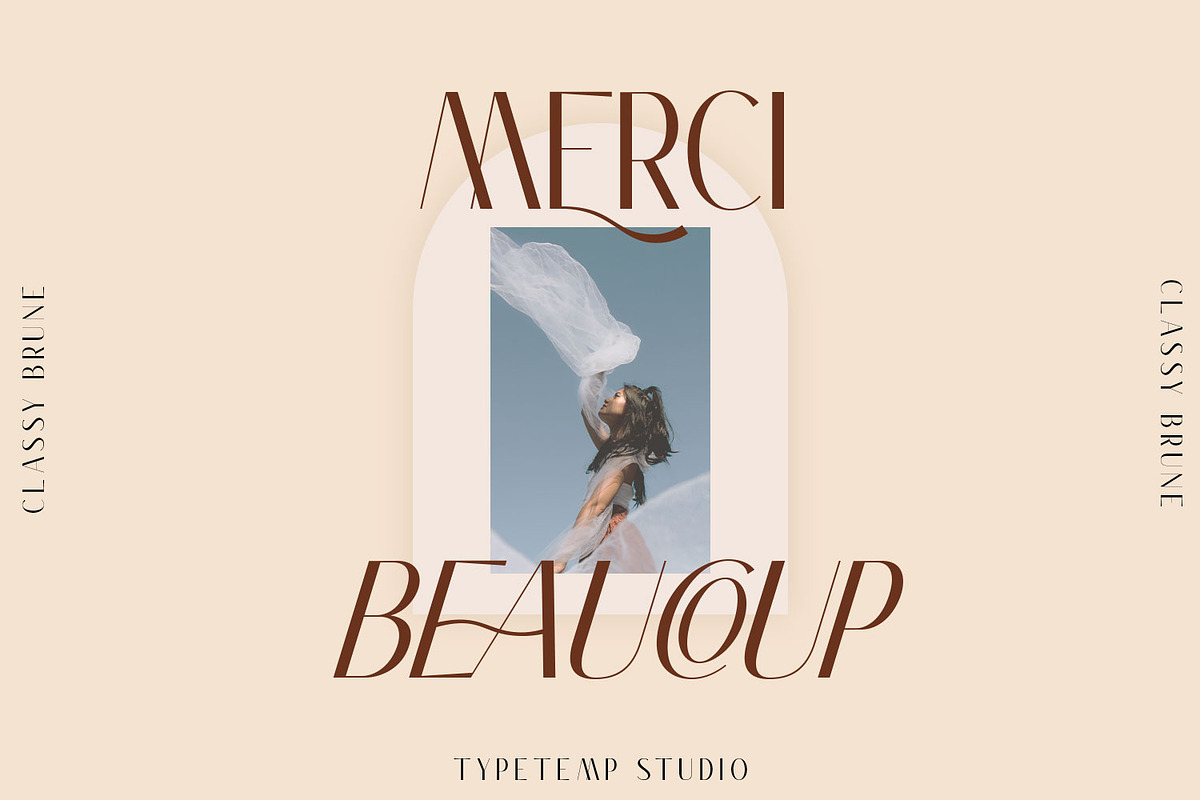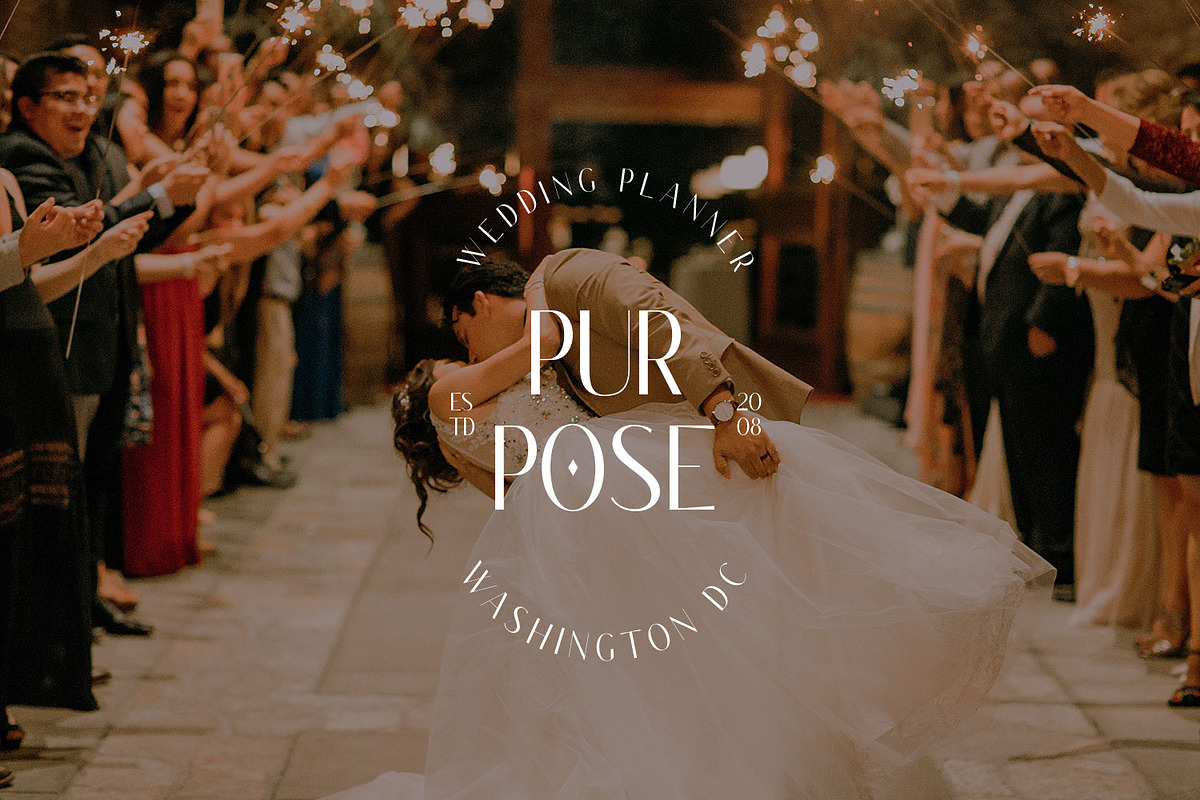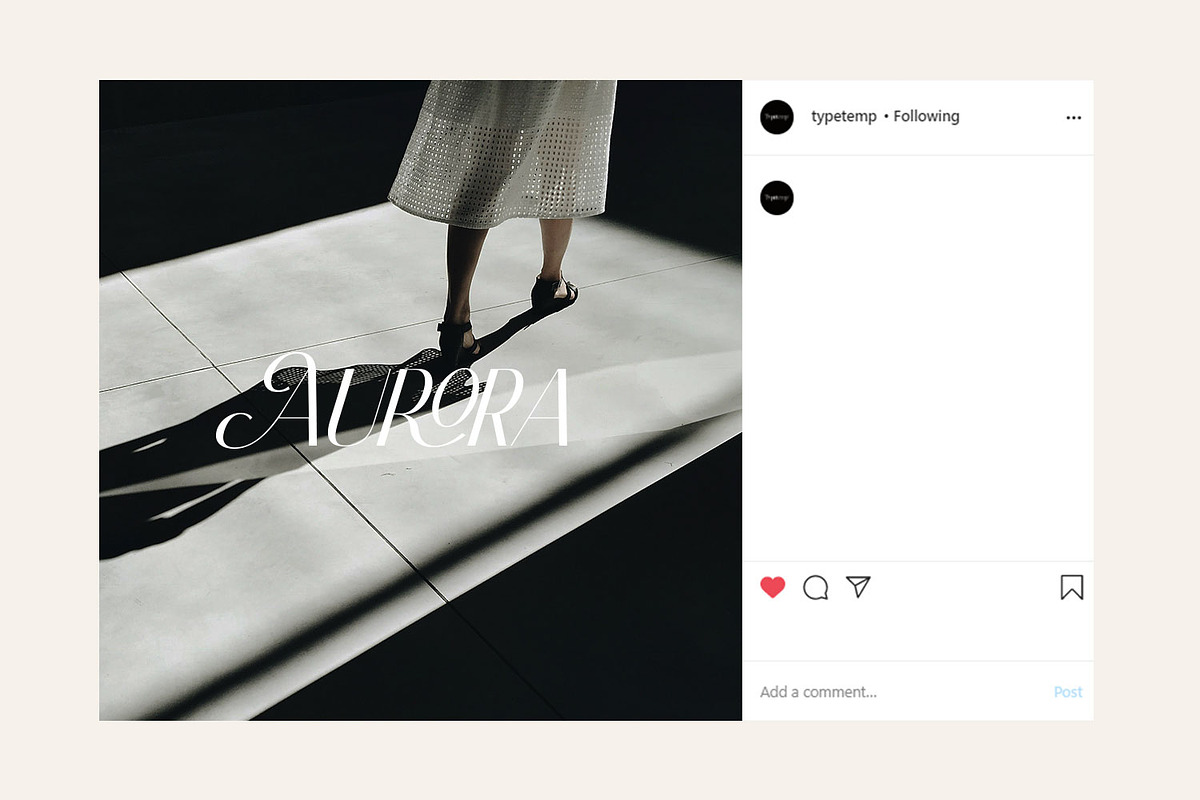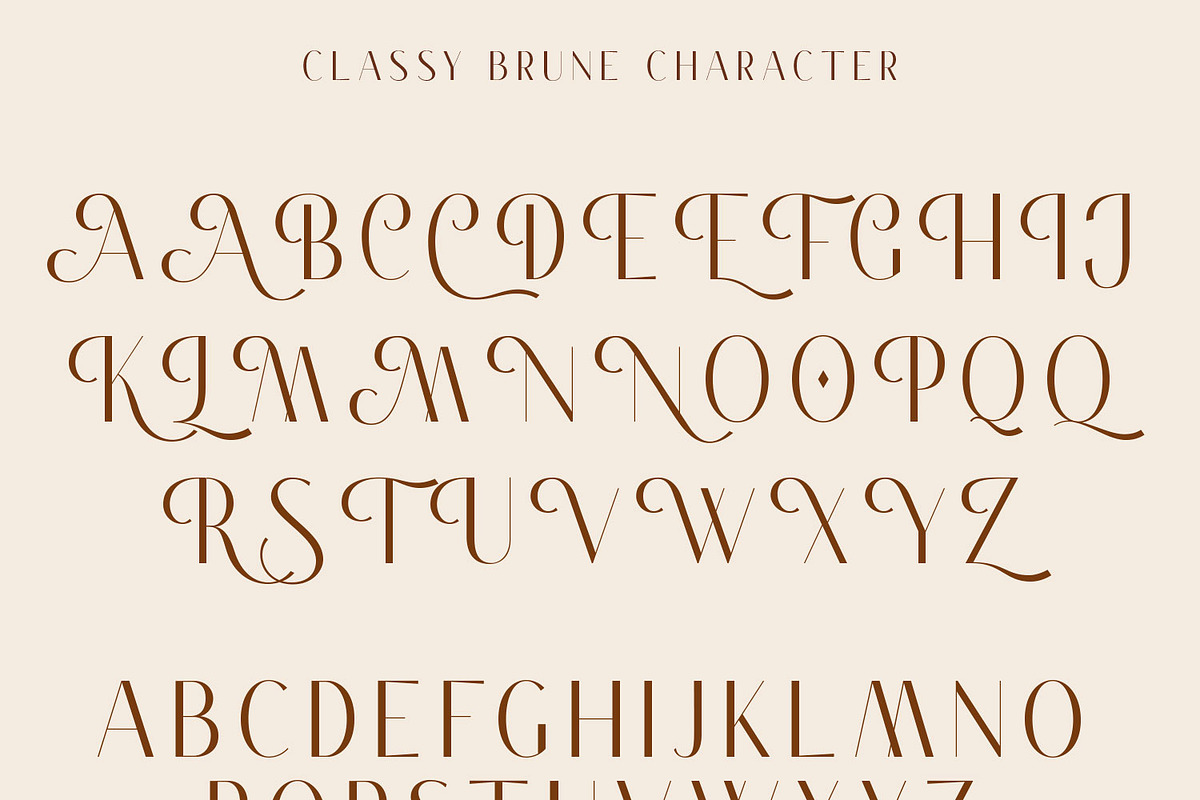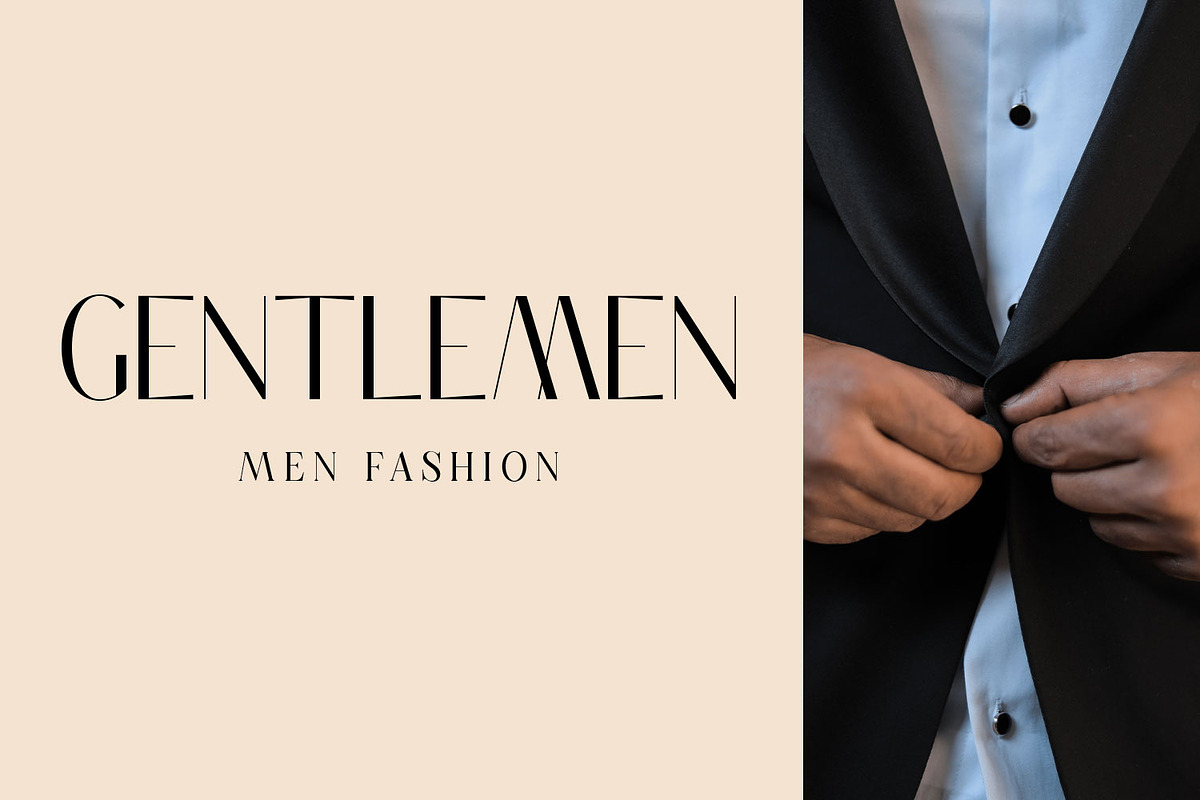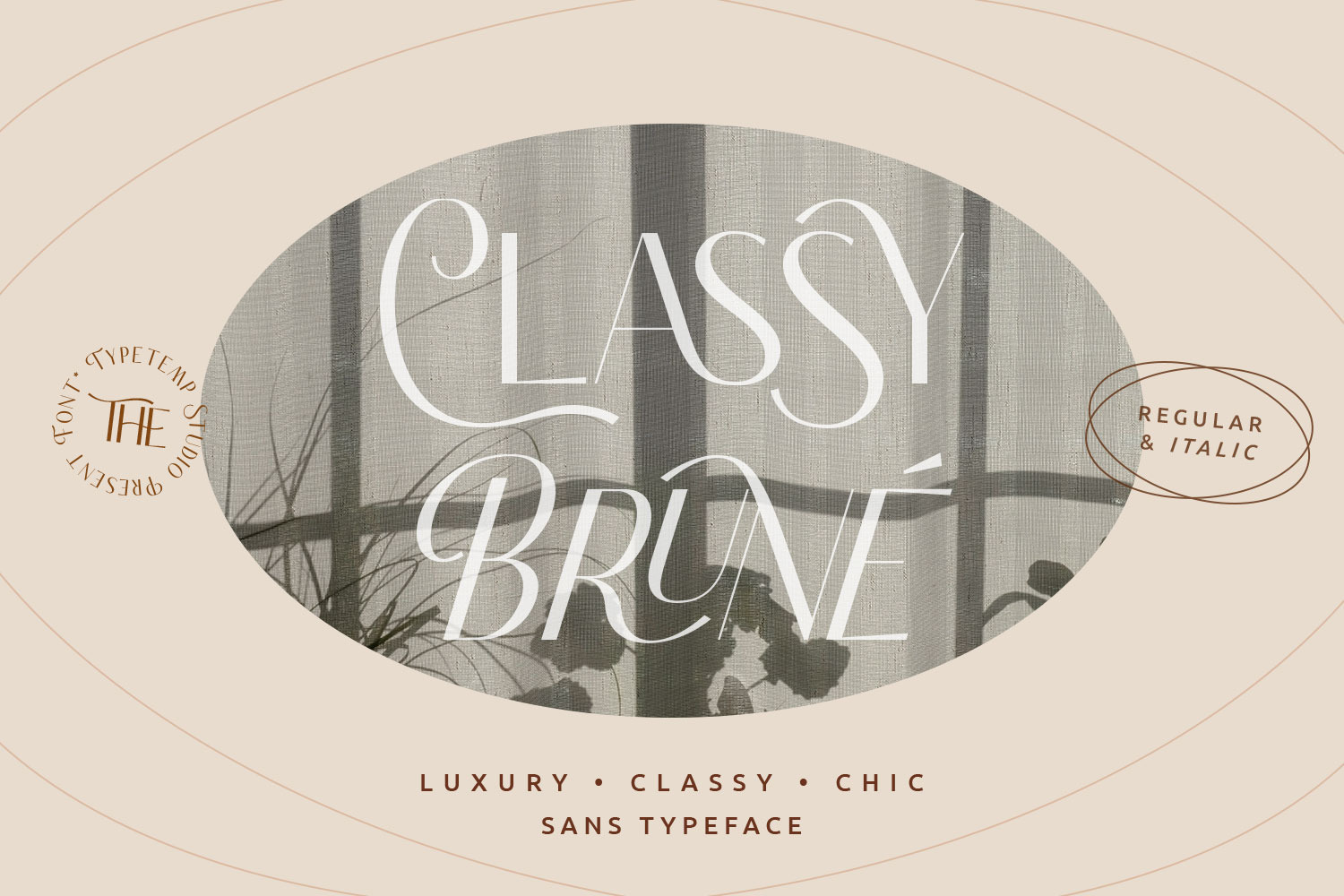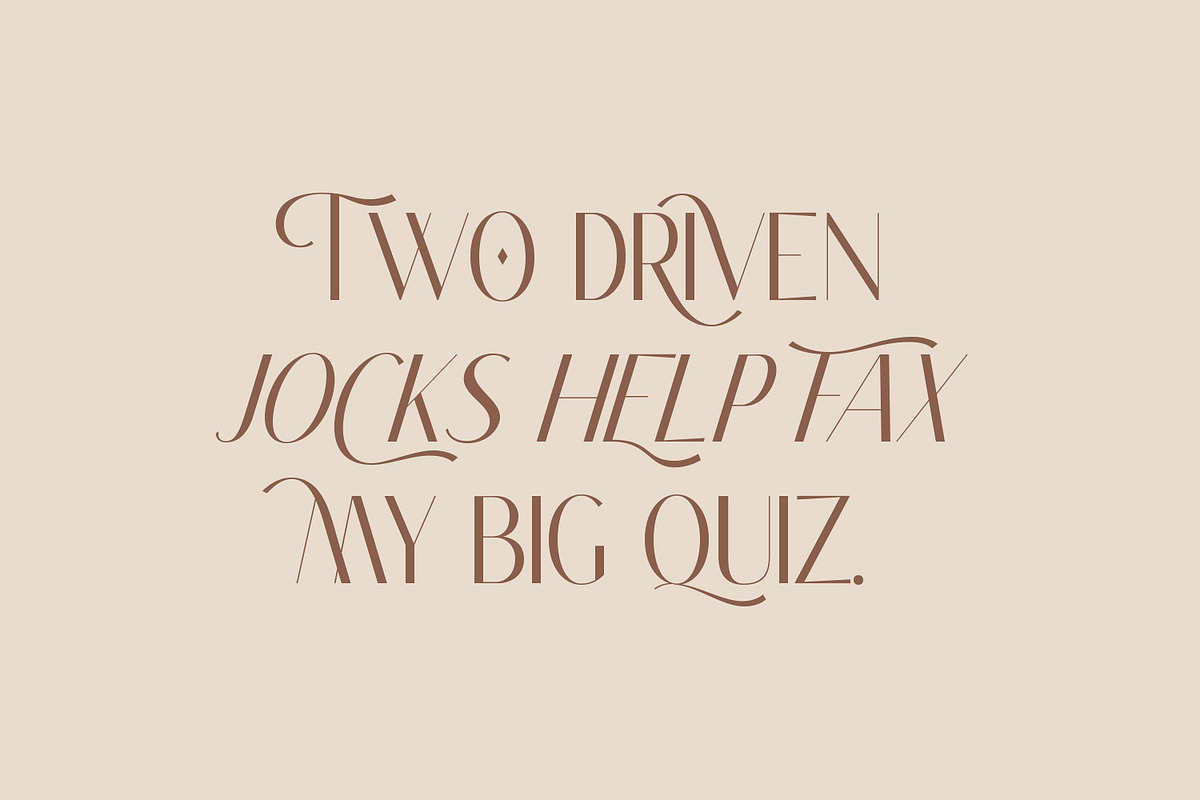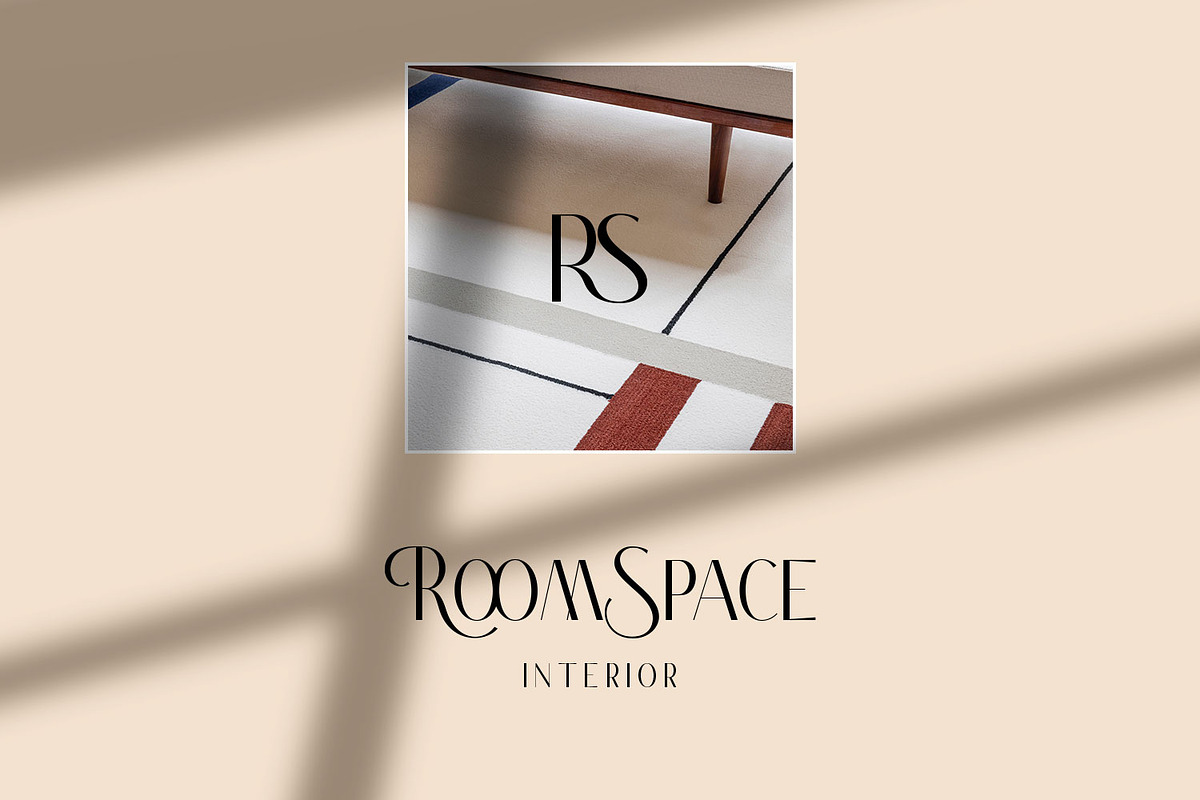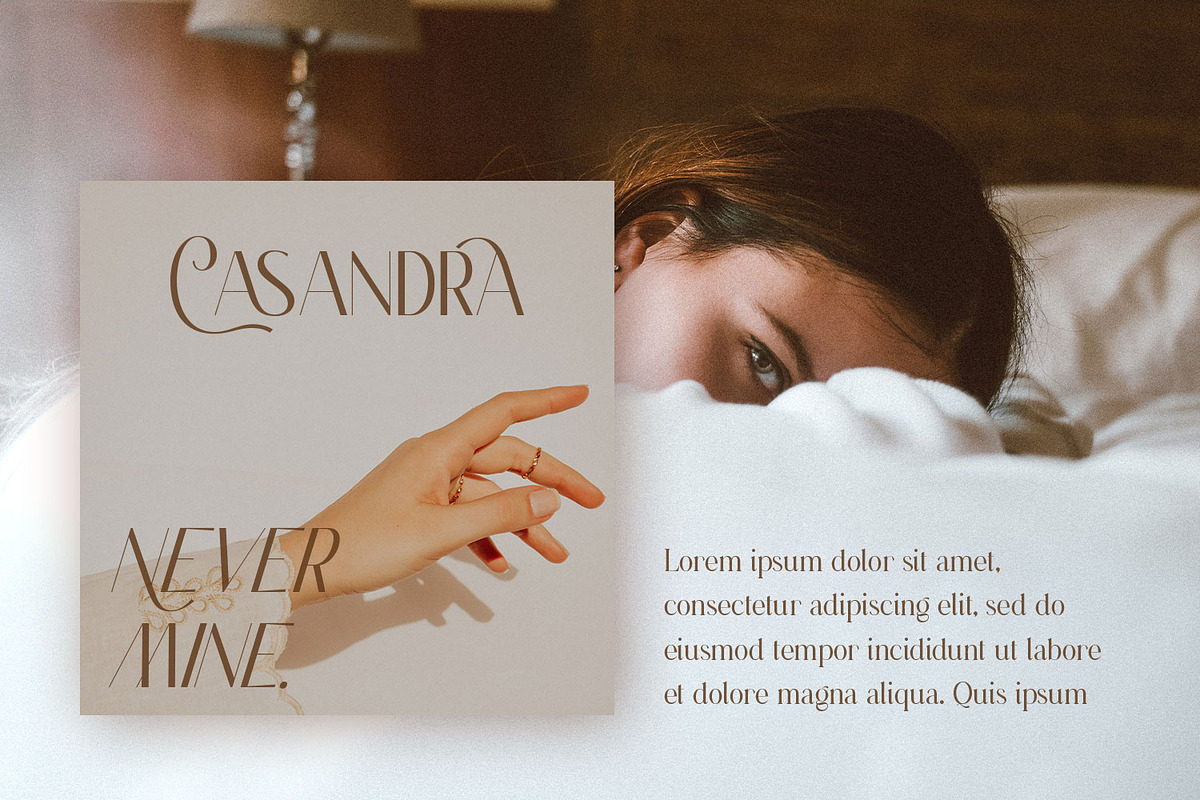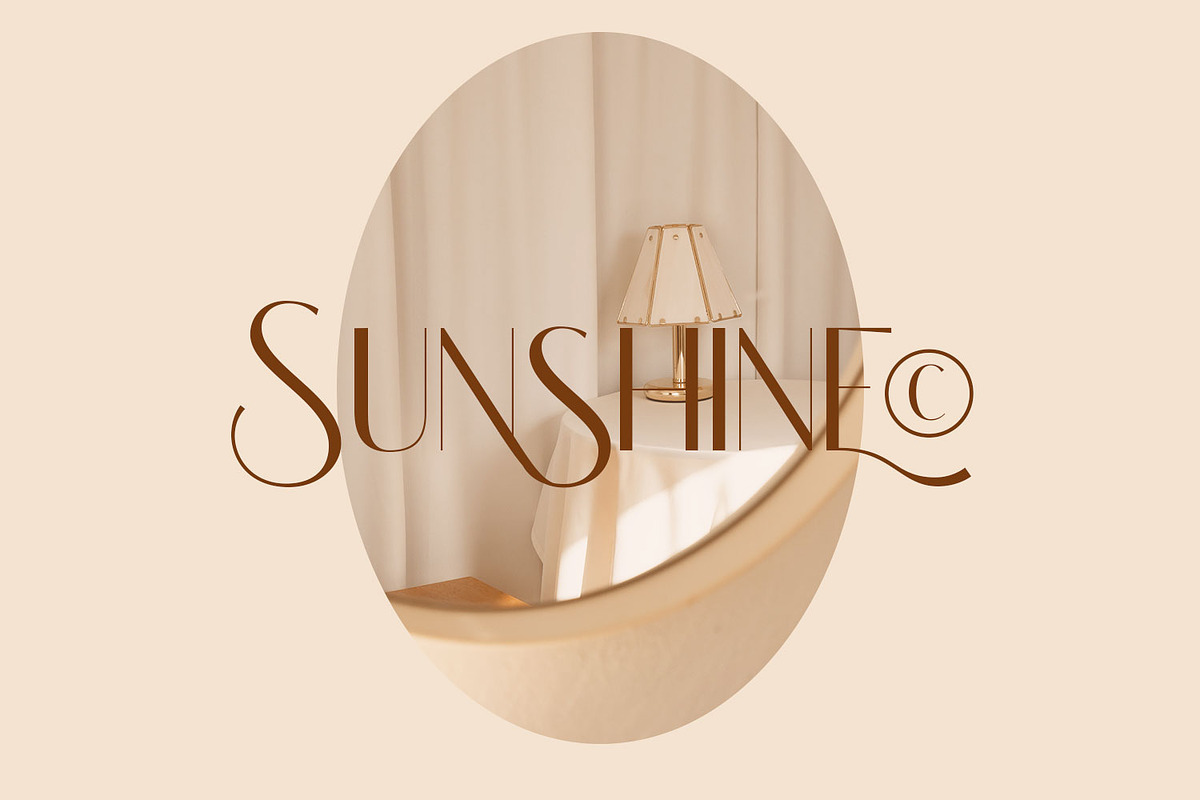
Classy Brune Sans Serif Typeface
Classy Brune a display sans serif with luxury, clean, chic, and visual elegance with two styles Regular and Italic and alternatives, ligatures, multilingual suport. Perfect for editorial projects, Logo design, Clothing Branding, product packaging, magazine headers, or simply as a stylish text overlay to any background image.
- Stylistic Alternates & Ligatures
- Multilanguange